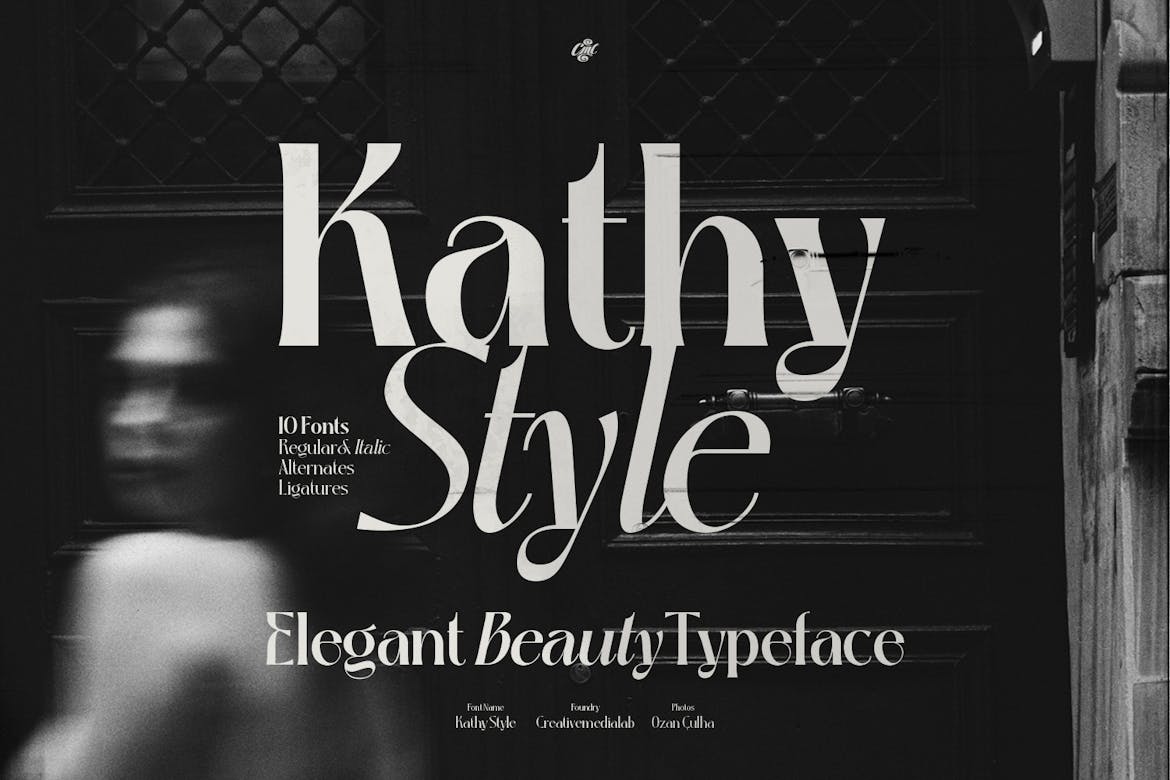
Kathy Style - Elegant Beauty Serif Font
Kathy Style - Elegant Beauty Serif Font is perfect for luxury beauty branding, elegant fashion magazines, sophisticated wedding stationery, premium cosmetics packaging, high-end jewelry advertising, refined spa materials, upscale salon identity, graceful book design, and exquisite editorial typography.
What makes Kathy Style - Elegant Beauty Serif Font exciting is its graceful sophistication that embodies feminine elegance and timeless beauty through meticulously crafted letterforms. This exquisite typeface features delicate serifs, refined stroke contrasts, and graceful proportions that create an atmosphere of luxury and sophistication. The font's elegant character and feminine charm make it ideal for brands that want to communicate beauty, grace, and premium quality through typography that captures the essence of refined femininity and timeless elegance.
Kathy Style - Elegant Beauty Serif Font family includes refined weight variations: Light, Regular, Medium, SemiBold, Bold, and Display, each available in both roman and italic styles. This sophisticated collection provides 12 beautifully crafted fonts that enable designers to create elegant typographic hierarchies while maintaining the graceful aesthetic throughout luxury beauty and fashion applications.
Design professionals appreciate Kathy Style - Elegant Beauty Serif Font for its versatility and timeless elegance. The font's balanced contrast and refined serifs work beautifully in both intimate product packaging and large-scale fashion campaigns. Its sophisticated presence appeals to discerning audiences who appreciate quality craftsmanship and feminine grace.
The comprehensive character set includes elegant ligatures, stylistic alternates, decorative elements, and extensive multilingual support that enhances the font's beauty aesthetic. Kathy Style - Elegant Beauty Serif Font Free Download enables creative professionals to explore the complete range of elegant possibilities before investment.
Whether used for established luxury beauty houses or emerging premium brands, Kathy Style - Elegant Beauty Serif Font consistently delivers sophisticated typography that communicates elegance, beauty, and refined femininity that resonates with audiences seeking grace, quality, and timeless aesthetic appeal.